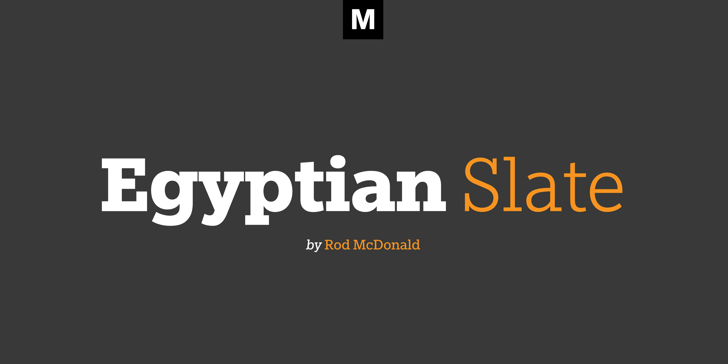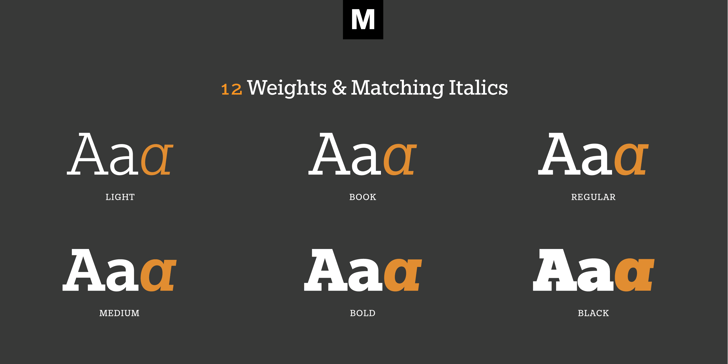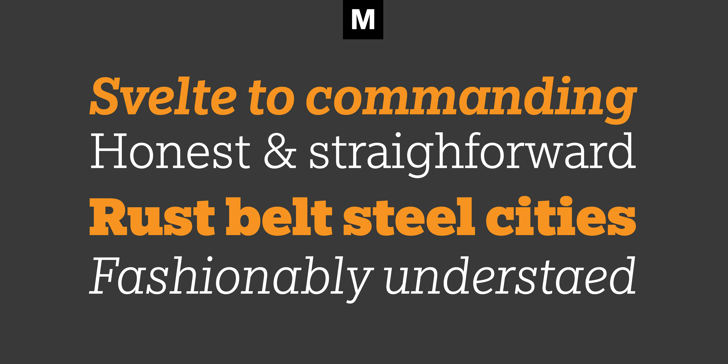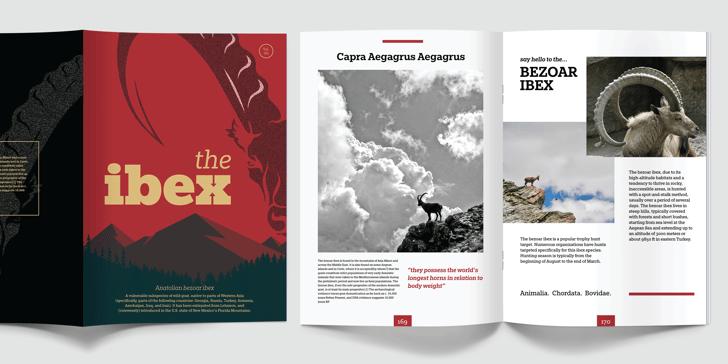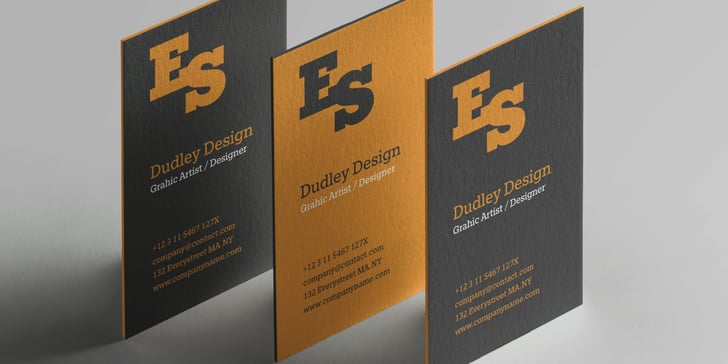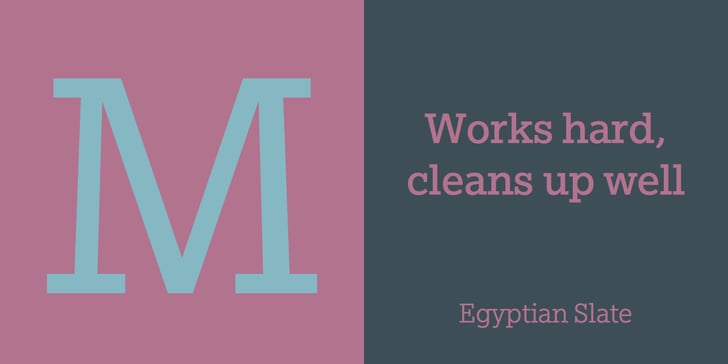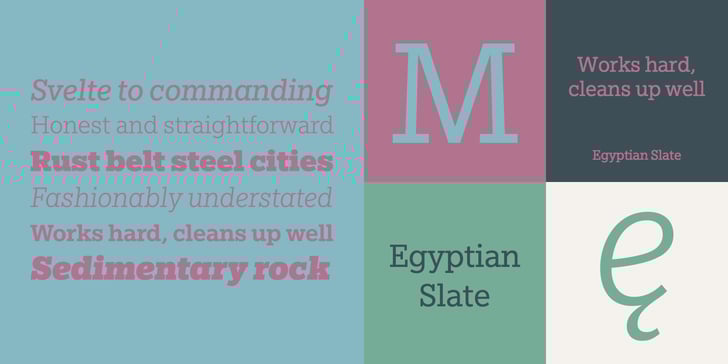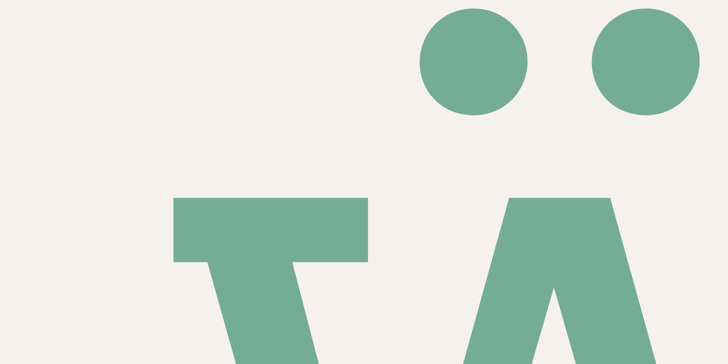
The Egyptian Slate™ Font Family was designed by Rod McDonald and published by Monotype. Egyptian Slate contains 12 styles and 1 family package options. Just as the camera adds weight to human faces, serifs can add weight to typographic faces. Rod McDonald trimmed and adjusted his new Egyptian Slate design as it emerged from its sans serif predecessor, the Slate typeface family. Slate is a great sans serif design, and the addition of his Egyptian Slate to your typeface library will make it even more versatile.
Egyptian Slate is a solid and stylish slab serif design that will look superb in the spotlight of your choosing. Available in six weights – from a svelte light to a commanding black – each upright member of the Egyptian Slate family has a complementary italic. Egyptian Slate fonts are available as either OpenType Std or OpenType Pro fonts; the later options offers an extended character set that supports most Central European and many Eastern European languages.